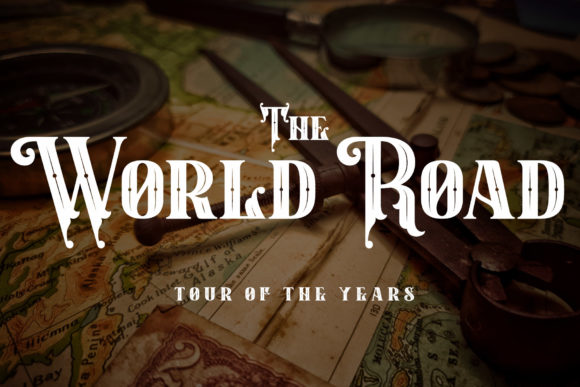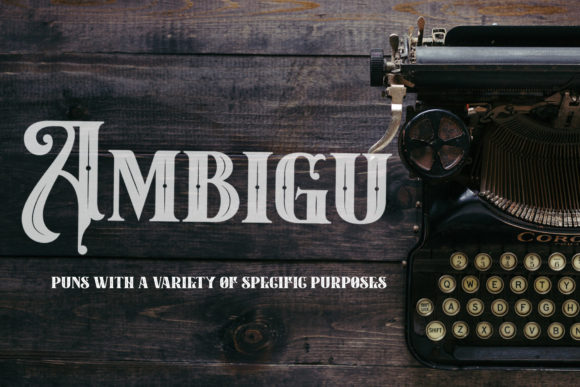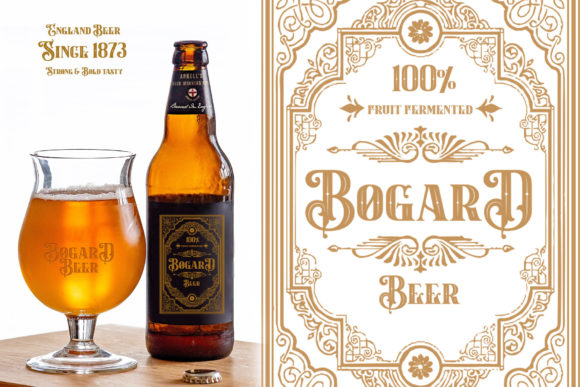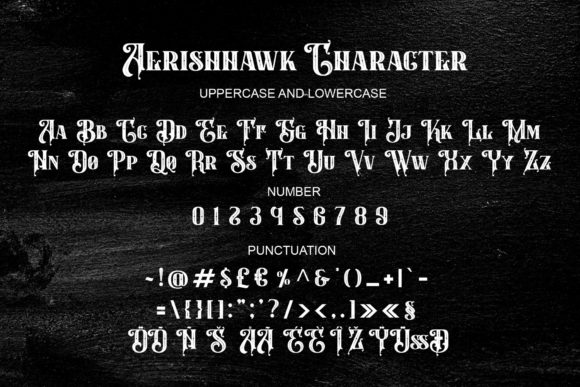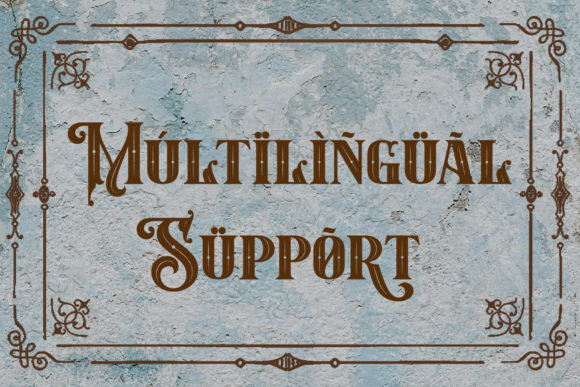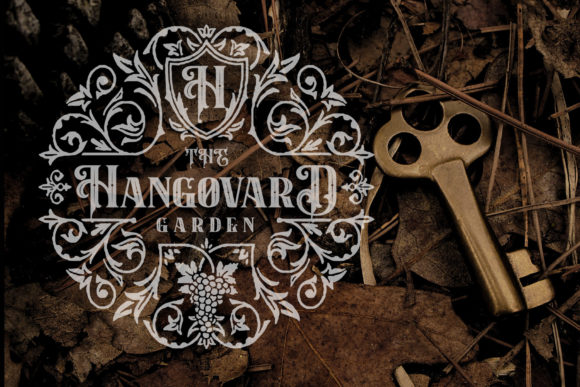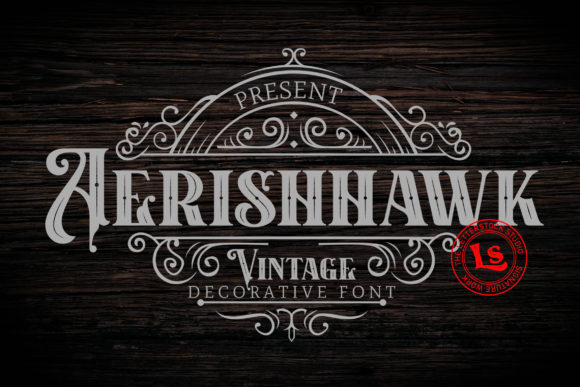
Aerishhawk Font: Elevate Your Designs with a Bold and Elegant Touch
In the world of typography, fonts play a crucial role in conveying the tone and personality of a design. For designers and crafters looking to make a statement, Aerishhawk Font is an exceptional choice. This bold, distinct, and incredibly imposing display font is designed to add an assertive and elegant vibe to any design, leaving a lasting impression on your audience.
The Power of Aerishhawk Font
Aerishhawk Font is not just another font; it’s an experience. Its unique design elements make it stand out from the crowd, allowing your designs to cut through the noise. With Aerishhawk, you can:
- Create striking headlines that grab attention and draw the reader in.
- Add elegance to your designs, making them perfect for luxury brands, high-end products, or sophisticated marketing materials.
- Make a statement with a font that’s both bold and refined, ideal for designers who want to push the boundaries of creativity.
What Makes Aerishhawk Font So Special?
Aerishhawk Font boasts several key features that set it apart:
- Bold and distinct: Its imposing presence demands attention, making it perfect for display purposes.
- Elegant and refined: Despite its boldness, Aerishhawk maintains an air of sophistication, suitable for high-end designs.
- Versatile: This font can be used across various design platforms, from digital media to print materials.
Tips for Maximizing Aerishhawk Font’s Impact
To get the most out of Aerishhawk Font, consider the following tips:
- Use it sparingly: As a display font, Aerishhawk is best used for headlines or key messages.
- Pair it with complementary fonts to create visual interest and hierarchy.
- Play with colors and textures to add depth and emotion to your design.
Who Can Benefit from Aerishhawk Font?
Aerishhawk Font is perfect for:
- Graphic designers looking for a bold and elegant font to elevate their designs.
- Marketing professionals seeking to create eye-catching promotional materials.
- Crafters and DIY enthusiasts wanting to add a professional touch to their projects.
- Branding experts aiming to create a strong visual identity for their clients.
Aerishhawk Font is more than just a font; it’s a design statement. Its bold, distinct, and elegant features make it an exceptional choice for designers and crafters looking to create stunning visuals. By incorporating Aerishhawk into your design arsenal, you’ll be able to craft compelling, assertive, and beautiful designs that leave a lasting impression.